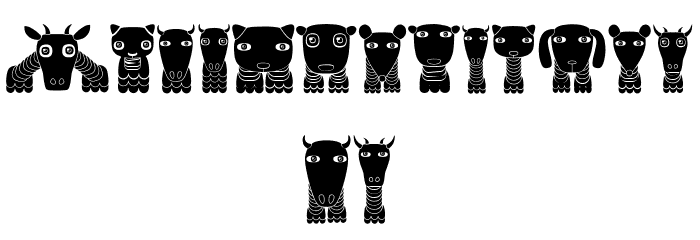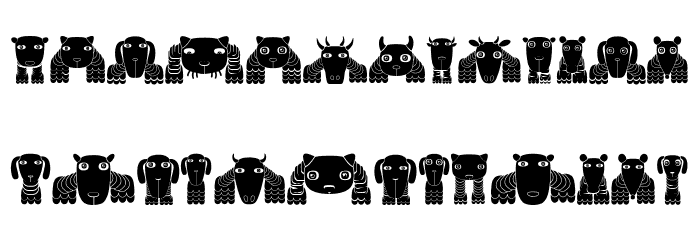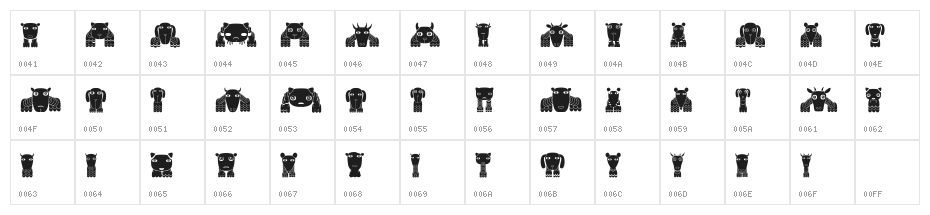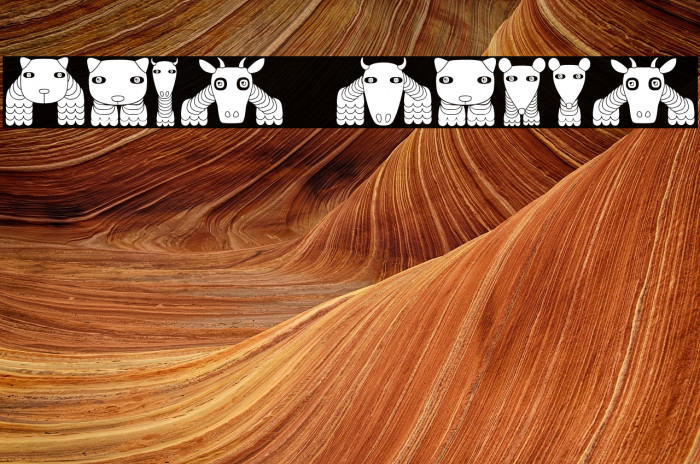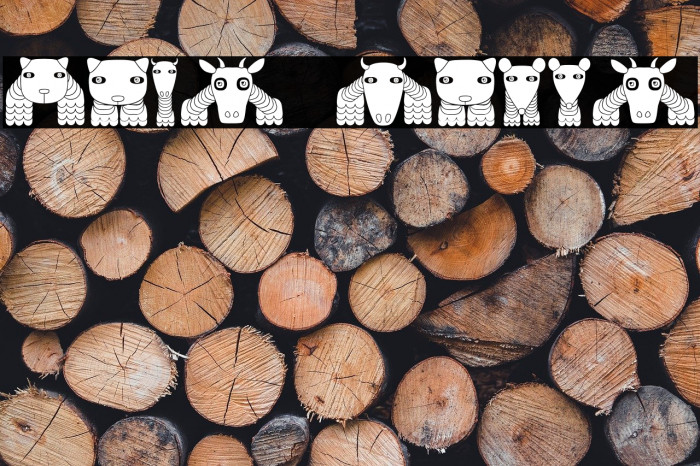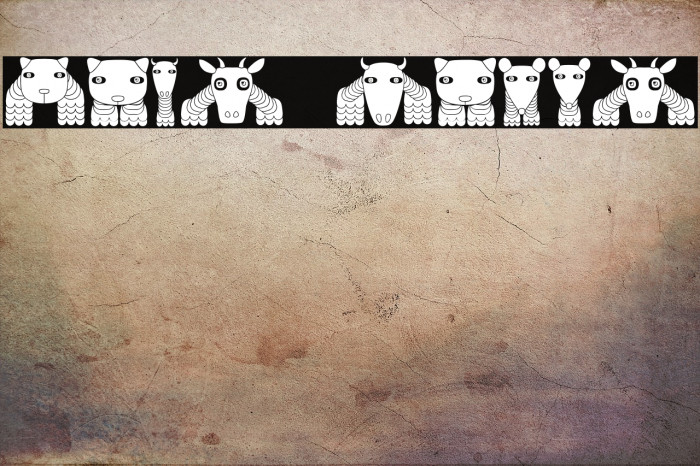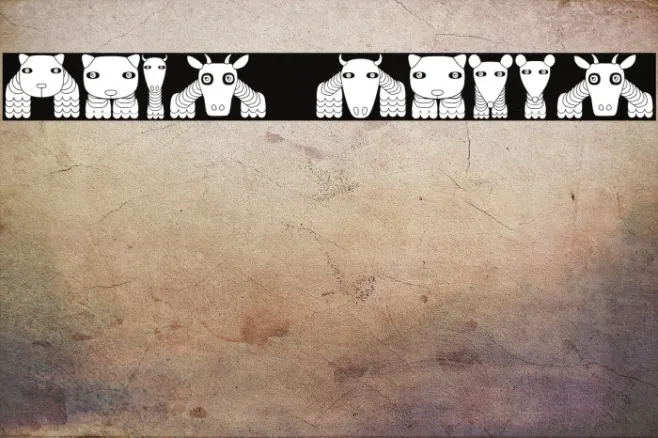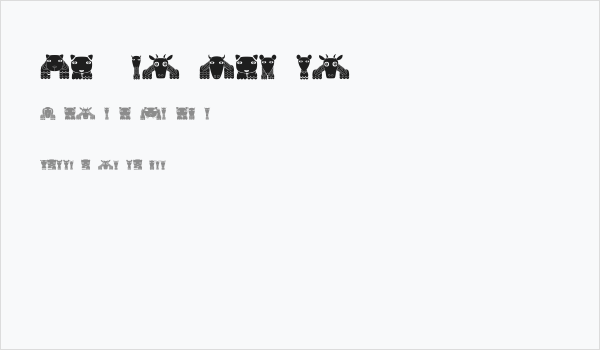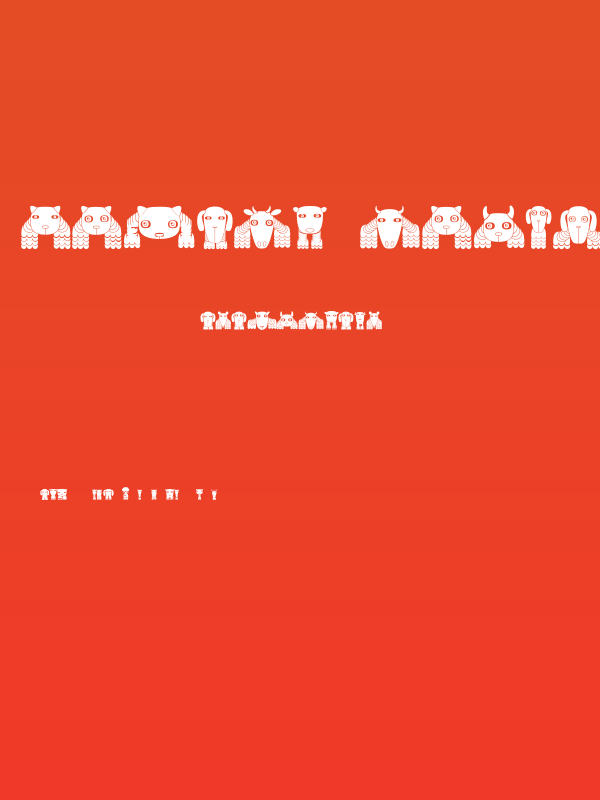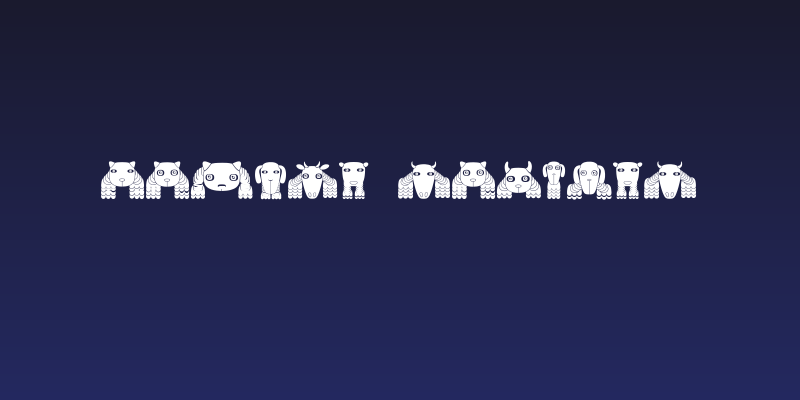
Bestia Regular Font
This font is a playful and imaginative decorative typeface where each character is represented by a unique, stylized animal figure. The design is bold and whimsical, with each letter and number crafted to resemble a different creature, complete with distinctive features like horns, wings, and expressive eyes. The characters are evenly spaced, maintaining a consistent visual rhythm across the typeface. This font is ideal for projects that require a fun and engaging visual element, such as children's books, posters, or branding for playful products. The overall style is distinctly modern and artistic, making it a standout choice for creative applications.
A whimsical decorative font featuring animal-shaped characters.
- Proposed Projects: Children's books, playful posters, creative branding, educational materials.
- Overall Style: Modern, Decorative